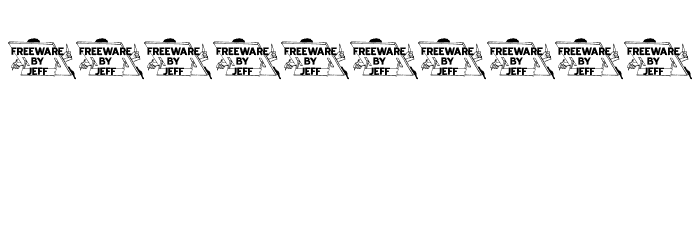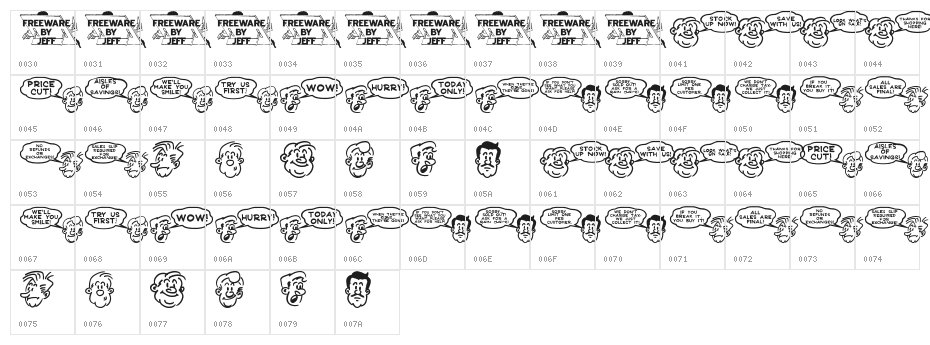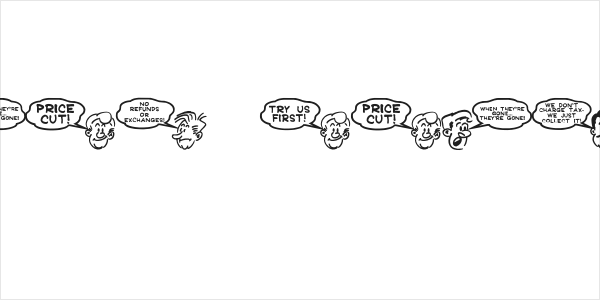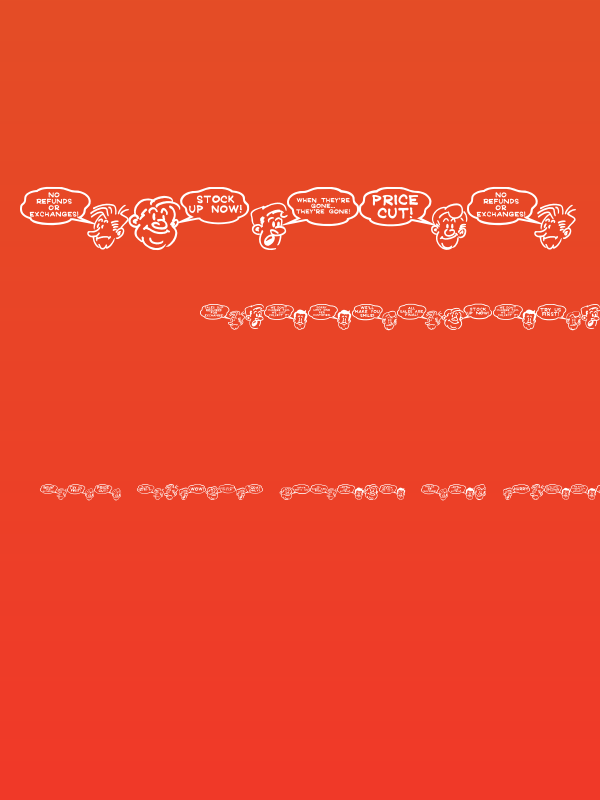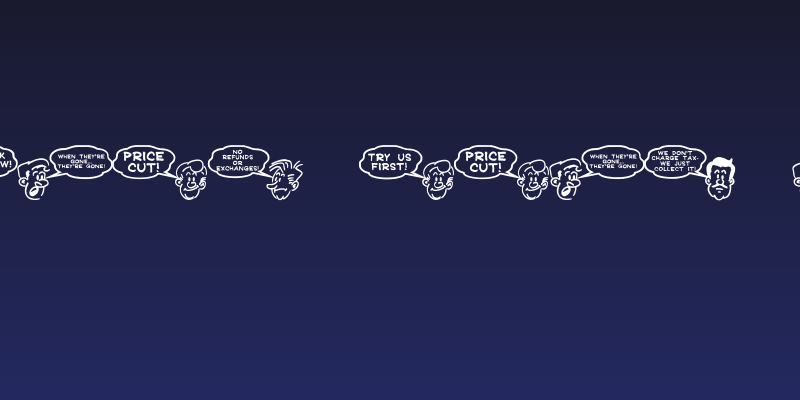
Sales Help JL Font
Sales Help JL Description
This is not a valid font. The image contains cartoonish characters with speech bubbles, each displaying different phrases related to sales and promotions. The characters are expressive and varied, adding a playful and humorous touch to the text. The overall design is more illustrative and decorative, focusing on visual storytelling rather than typographic consistency.
Overall StyleHumorous, Illustrative
Use CaseComics, Posters, Advertisements
Proposed ProjectsThis design could be used for comic strips, promotional posters, or humorous advertisements.